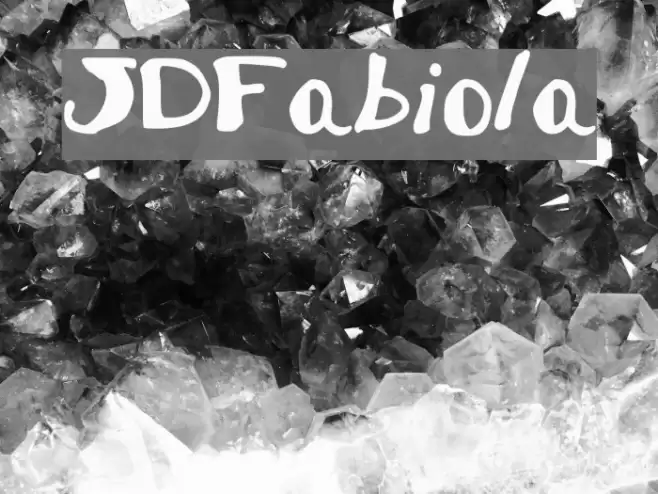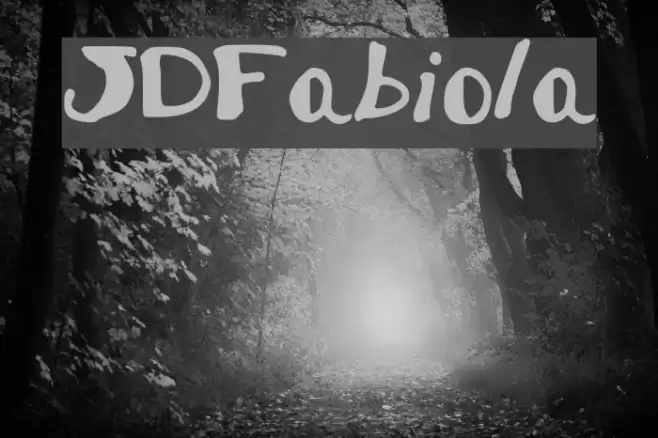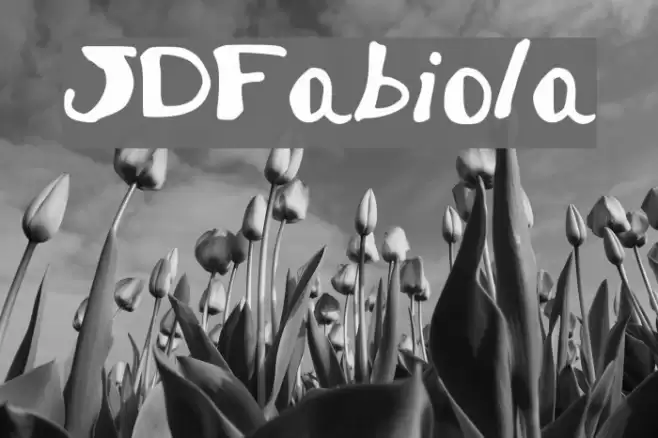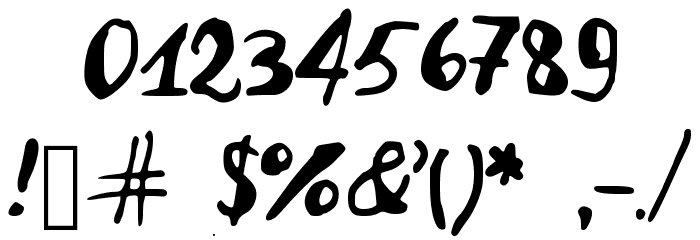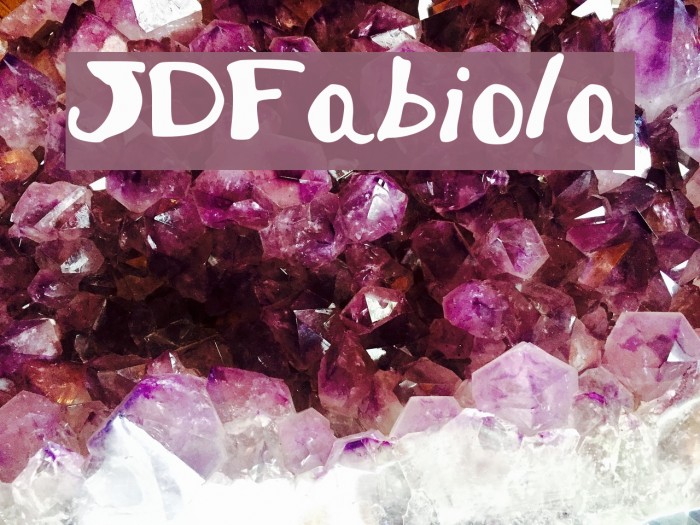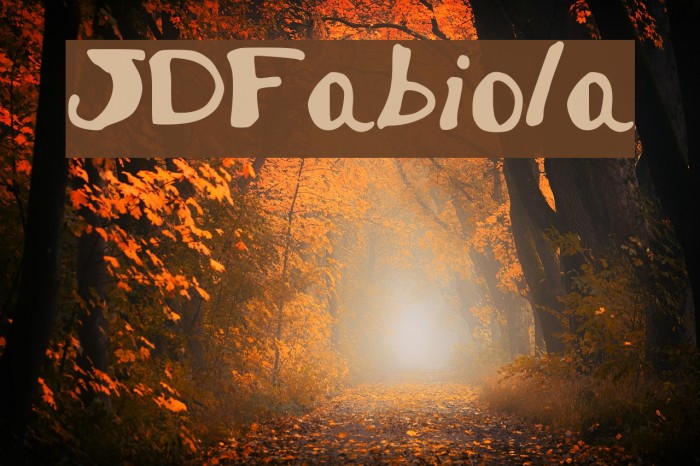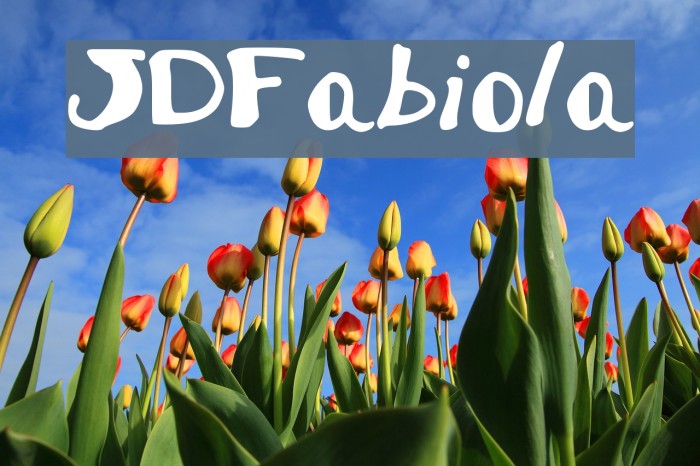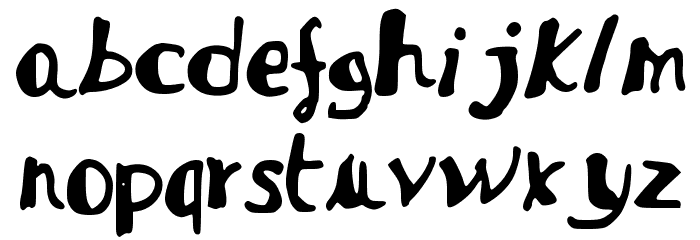
JDFabiola Font
JDFabiola Description
This font features a playful and artistic style, characterized by its irregular and dynamic strokes. The letters have a hand-drawn appearance, with varying thickness that adds a sense of movement and energy. The uppercase letters are bold and slightly whimsical, while the lowercase letters maintain a consistent flow with a touch of eccentricity. The numbers are equally expressive, matching the overall lively aesthetic. Special characters are creatively designed, enhancing the font's unique personality. This font is ideal for projects that require a fun and informal touch.
A playful, hand-drawn font with dynamic and irregular strokes from Uncategorized fonts.
- Proposed Projects: Perfect for children's book covers, playful branding, creative posters, and artistic invitations.